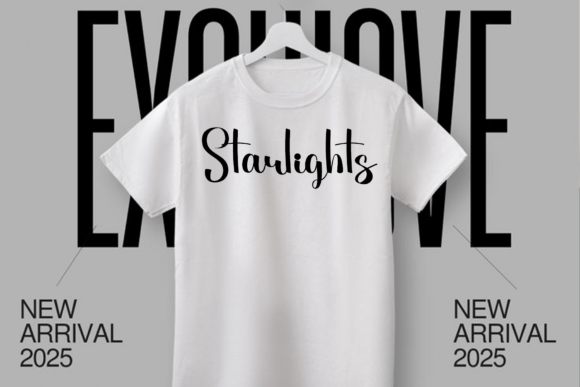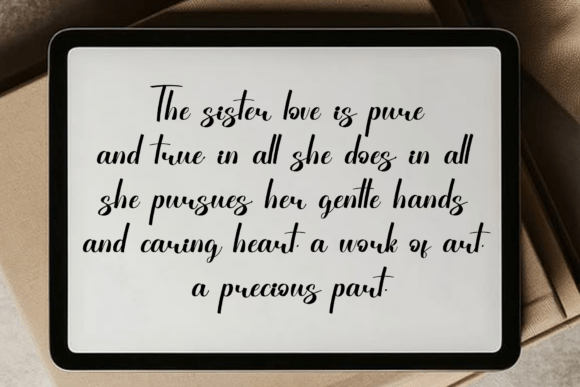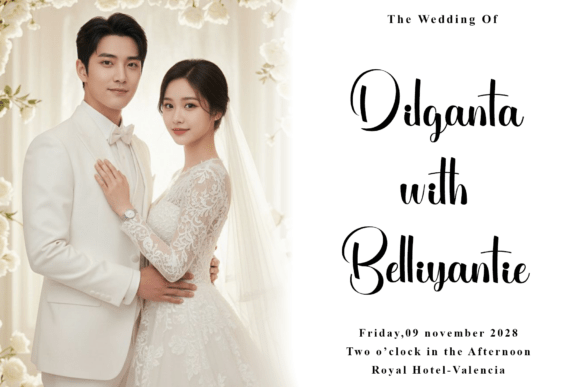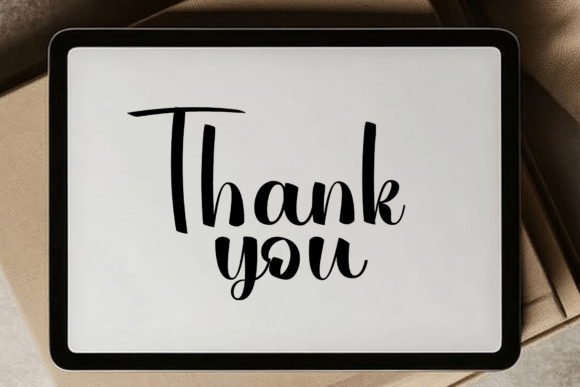
The Magic of Handwritten Typography
As a designer, there’s no feeling quite like the rush of creativity that comes with discovering a new font. It’s like stumbling upon a hidden treasure trove of inspiration, and suddenly, your entire project takes on a new life. For me, that moment happened when I first laid eyes on the Barbie Moonlighty Font.
This lovely, timeless handwritten font is the perfect choice for creating eye-catching logos, branding, and quotes. With every letter having a unique and beautiful touch, it’s no wonder why designers adore it. The Barbie Moonlighty Font brings a touch of elegance and whimsy to any design, making it a valuable addition to any designer’s toolkit.
Whether you’re a seasoned pro or just starting out, the Barbie Moonlighty Font is sure to inspire your next creative project.
Key Features of Barbie Moonlighty Font
- Font Family: Barbie Moonlighty Font is a unique, handwritten font designed for creative projects.
- Unique Characteristics: The font features a dreamy, ethereal quality with flowing connections between letters, making it perfect for artistic and creative projects.
Designer Review: Barbie Moonlighty Font
Overall, I think the Barbie Moonlighty Font has some nice touches, but it’s not without its flaws. Let’s start with the good stuff:
- ✨ Unique, whimsical feel that’s perfect for feminine designs
- ✨ Great for use in packaging, invitations, and other decorative elements
- ✨ Well-suited for creating a sense of magic and wonder
- ⚠️ Limited font sizes and styles, which may limit its versatility
- ⚠️ May not be suitable for use in formal or professional designs
- ⚠️ Can be a bit too ornate for some tastes
Overall, I think the Barbie Moonlighty Font is a fun and playful addition to any designer’s toolkit. While it may not be the best choice for every project, it’s definitely worth considering for designs that require a touch of magic and whimsy. Just be sure to use it thoughtfully and in moderation.
The Barbie Moonlighty Font is ideal for:
- Designing whimsical and dreamy graphics.
- Creating eye-catching titles and headings.
- Adding a touch of magic to your branding and marketing materials.